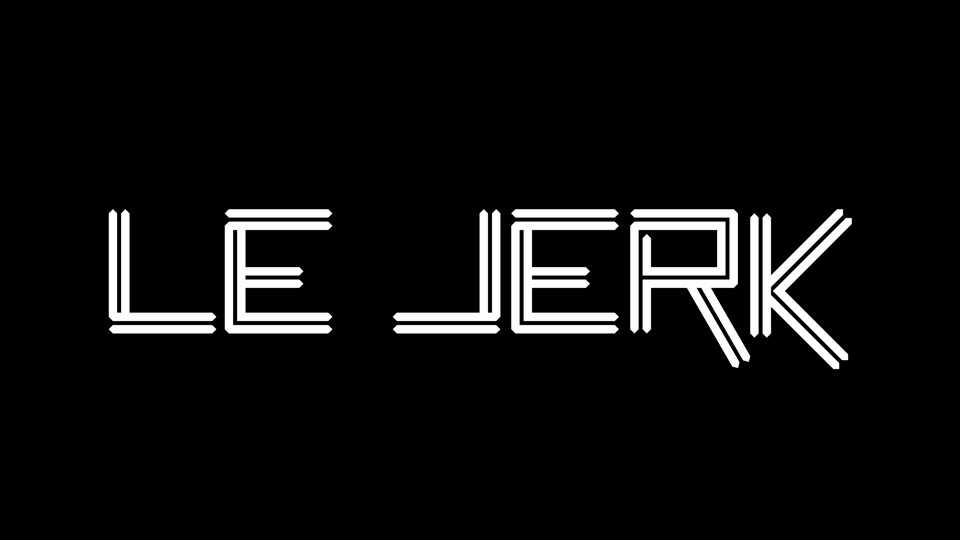
Download Le Jerk font, a double line geometric typeface based on rectangular shapes. Its bold look is well suited for poster design, album artworks and typography compositions.
Designer: Frank Adebiaye